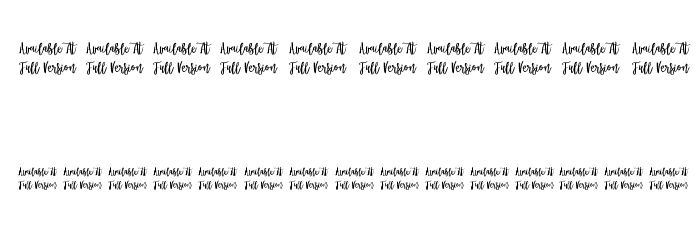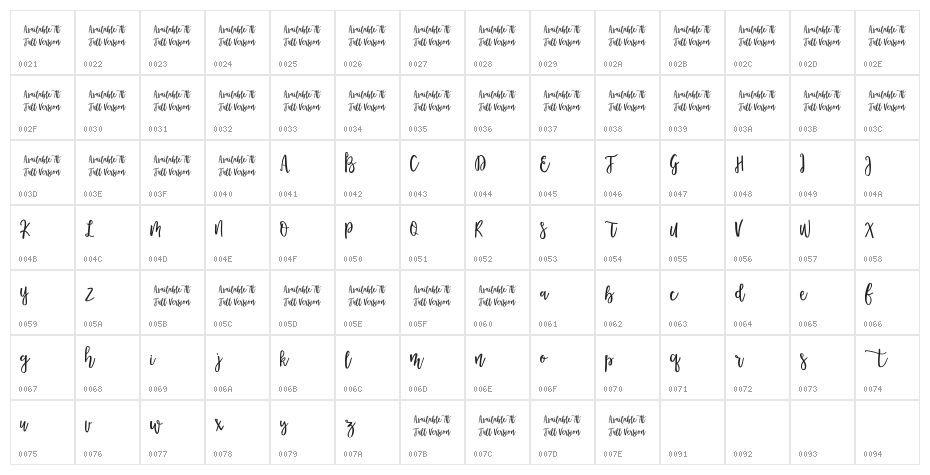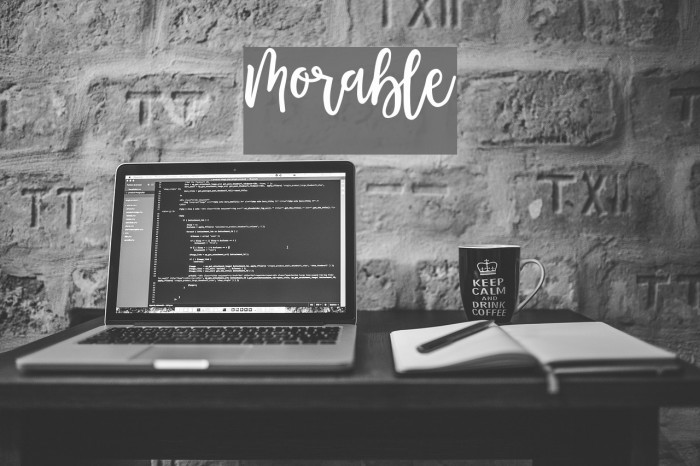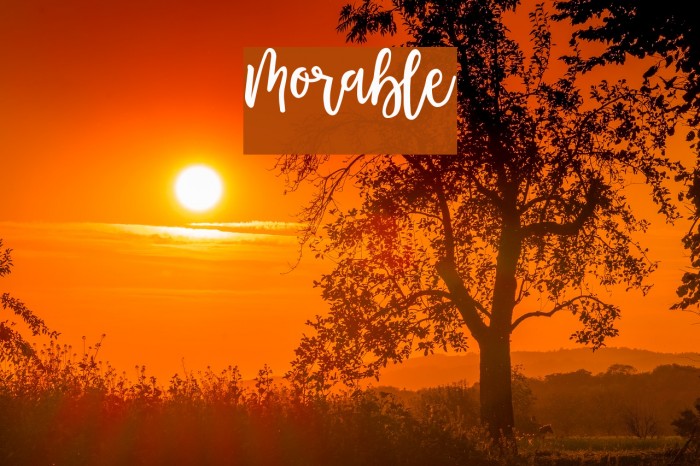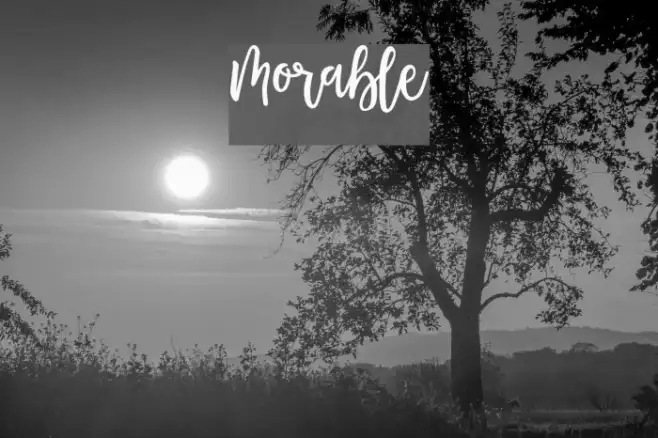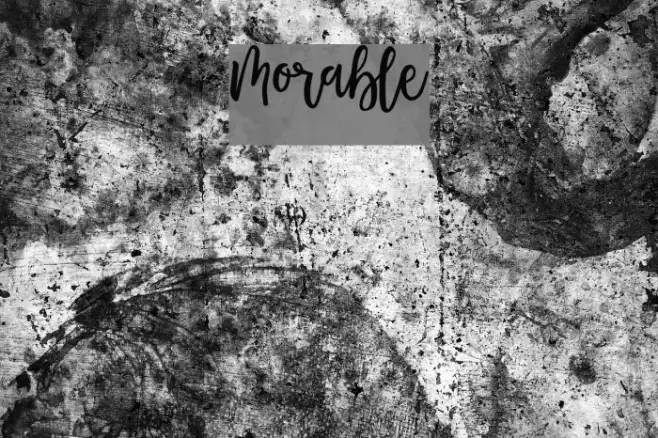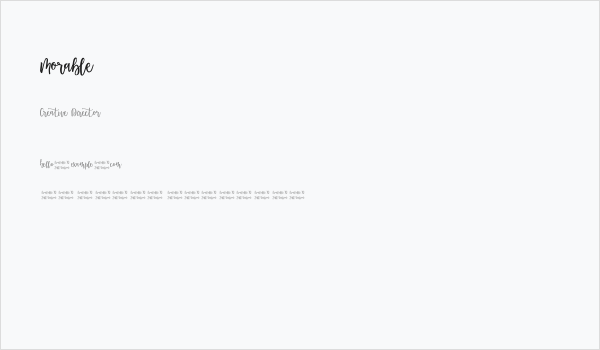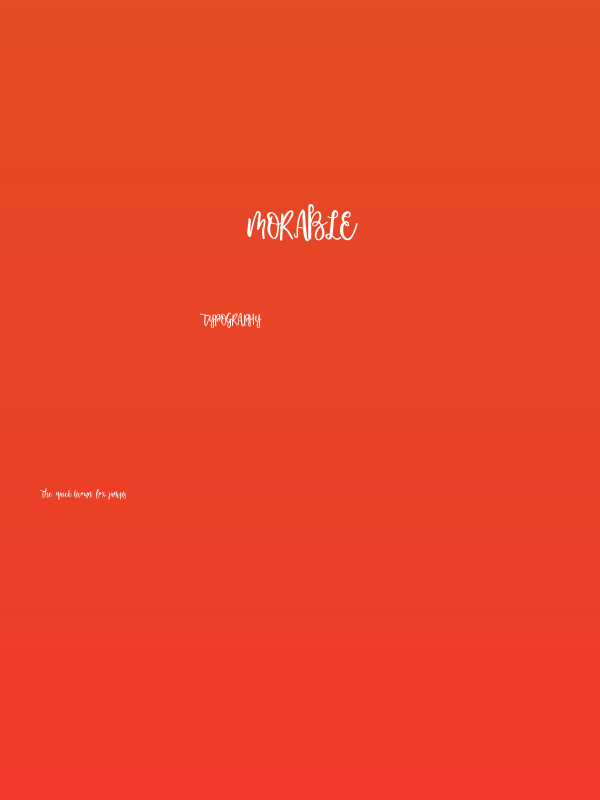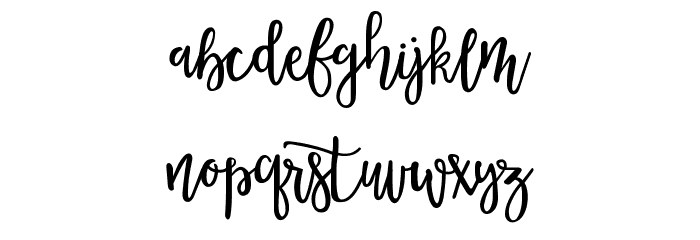
Morable Font
Morable Description
This font features a playful and elegant handwritten style with a smooth flow and rounded edges. The letters are connected, giving it a cursive appearance that is both casual and sophisticated. The uppercase letters are slightly larger and more pronounced, while the lowercase letters maintain a consistent height, adding to the font's readability. The strokes are moderately thick, providing a balanced contrast that enhances its legibility. This font is ideal for projects that require a personal touch, such as invitations, greeting cards, or branding materials.
| Proposed Projects | Ideal for invitations, greeting cards, branding, and personal projects. |